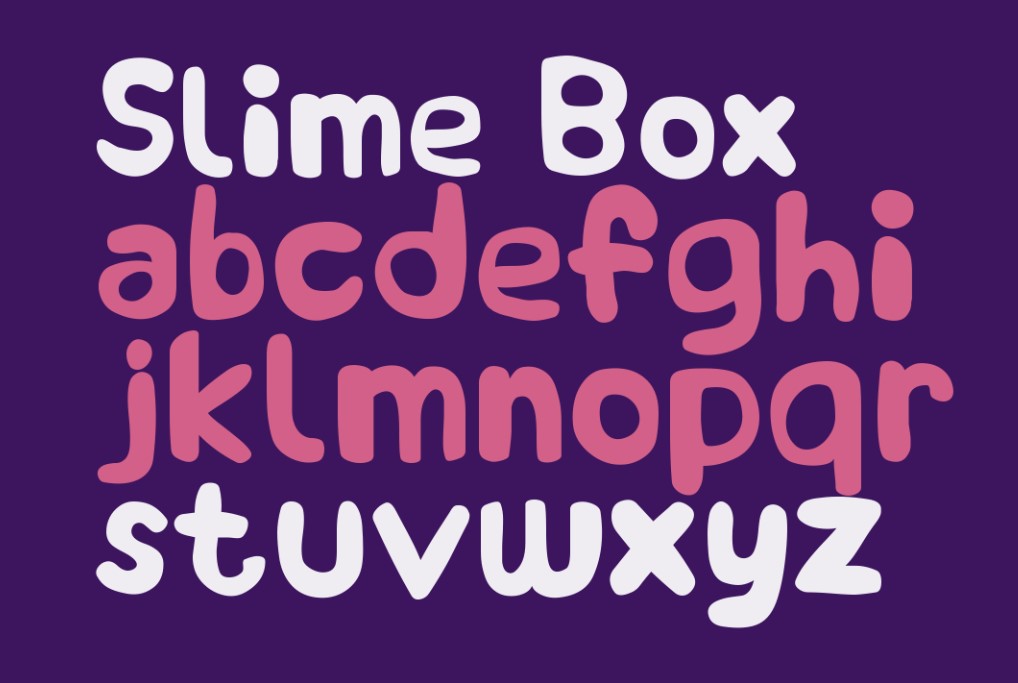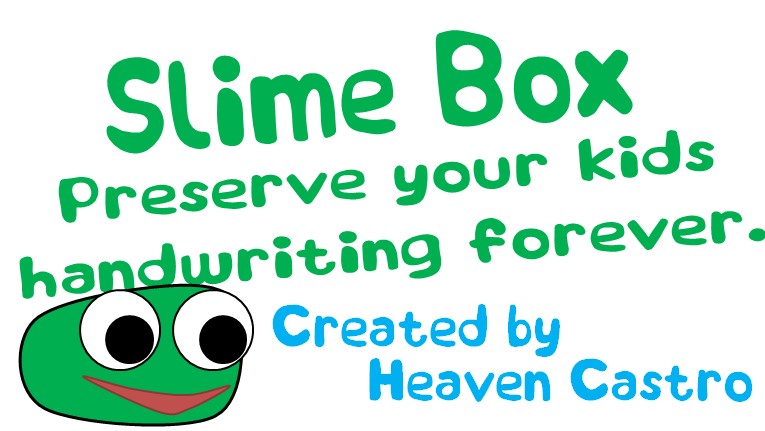
Slime Box Font
Slime Box Font is an idea for its text generator feature, simply going to get the pinnacle-notch belief approximately it. This font is one of the first-class typefaces of Disney. Additionally uses in the meme. A very well-known content fabric creator from frontage font the all proper reserved for this stylish typeface.
And he creates it for financial rolling stone font present-day writing and springs. He has taken the concept from which modified into as rapid as launched. In this manner. It has supported approximately one hundred ten varieties of worldwide languages.
Slime Box Font Free Now that you could capable of moreover be referred to as it the prevailing-day model of the moon font. Because of the truth now it has contained the whole historical elements with strength. The entire letters collectively with this specific font function pinnacle-notch based totally truly simply in reality layout. This typeface is also listed within the google fonts.